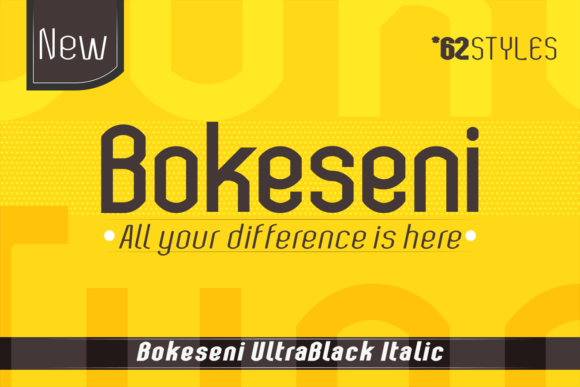
The Designer’s Delight: Bokeseni UltraBlack Italic Font
Have you ever been in the middle of a design project, and suddenly, you’re stuck on finding the perfect font? I recall a recent experience where a client requested a casual, yet elegant font for their branding project. After hours of searching, I stumbled upon the Bokeseni UltraBlack Italic Font, and it was love at first sight! ✨ In this article, we’ll dive into the world of Bokeseni, exploring its features, uses, and what makes it a fantastic addition to your design arsenal.
- ✅ Clean and Casual Feel: Bokeseni has an undeniably clean feel, making it perfect for both formal and non-formal designs.
- ✅ Versatility: This font comes in condensed and expanded versions, offering flexibility for various design projects.
- ✅ Beautiful Arrangement of Letters: The neat arrangement of letters in Bokeseni makes it stand out in any design.
- ✨ Easy on the Eyes: The font’s readability is exceptional, making it suitable for body text and headings.
While Bokeseni is an excellent font, there are a few minor quirks to consider:
- ⚠️ Limited Language Support: Bokeseni might not support all languages, so it’s essential to check the font’s specifications before use.
- 🤔 Not Suitable for Tiny Text: While Bokeseni is readable, it might not be the best choice for extremely small text sizes.
Rumor has it that the creator of Bokeseni was inspired by the simplicity and elegance of traditional sans-serif fonts. They aimed to craft a font that would be both clean and cute, making it perfect for a wide range of design projects. While we can’t confirm the exact story, one thing is certain – Bokeseni has captured the hearts of many designers! 🎉
Q: What is the best use case for Bokeseni?
A: Bokeseni is versatile and can be used for both formal and non-formal designs, such as branding, packaging, and digital interfaces.
Q: Is Bokeseni suitable for body text?
A: Yes, Bokeseni is readable and can be used for body text, but it might not be the best choice for extremely small text sizes.